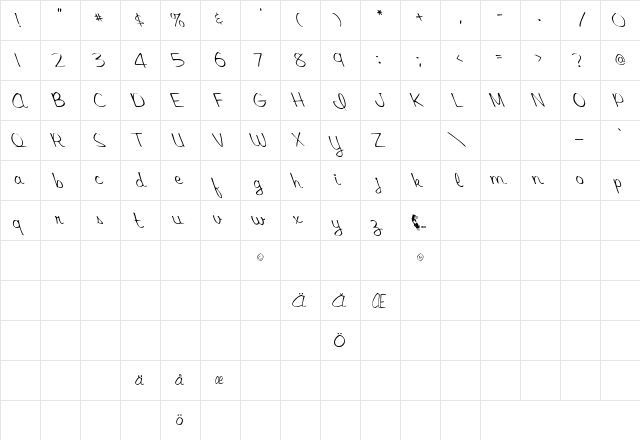
Libby Script Lefty Regular
Design Context for Libby Script Lefty Typeface
Libby Script Lefty brings a calligraphic fluidity to the page — its connecting strokes and expressive curves give it an unmistakably human quality.